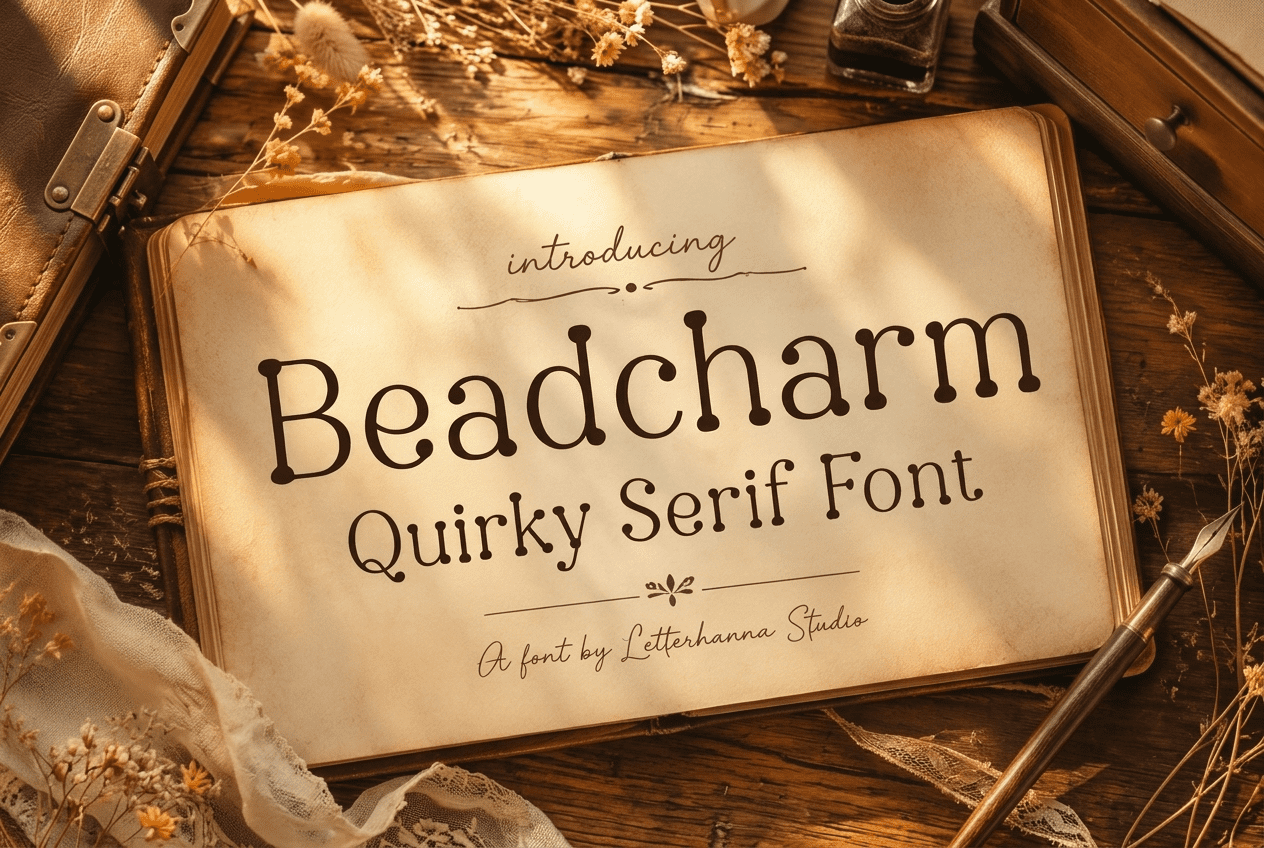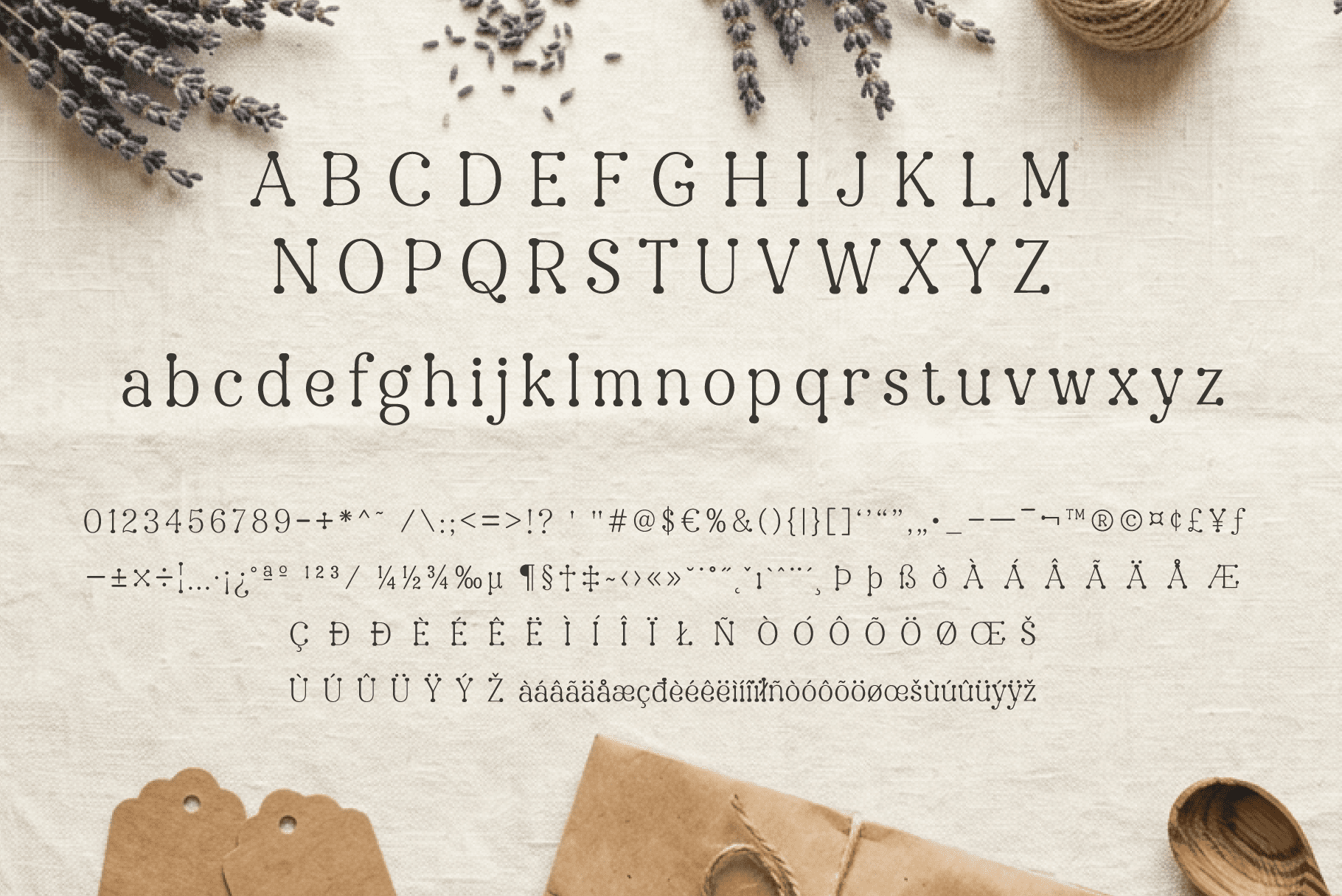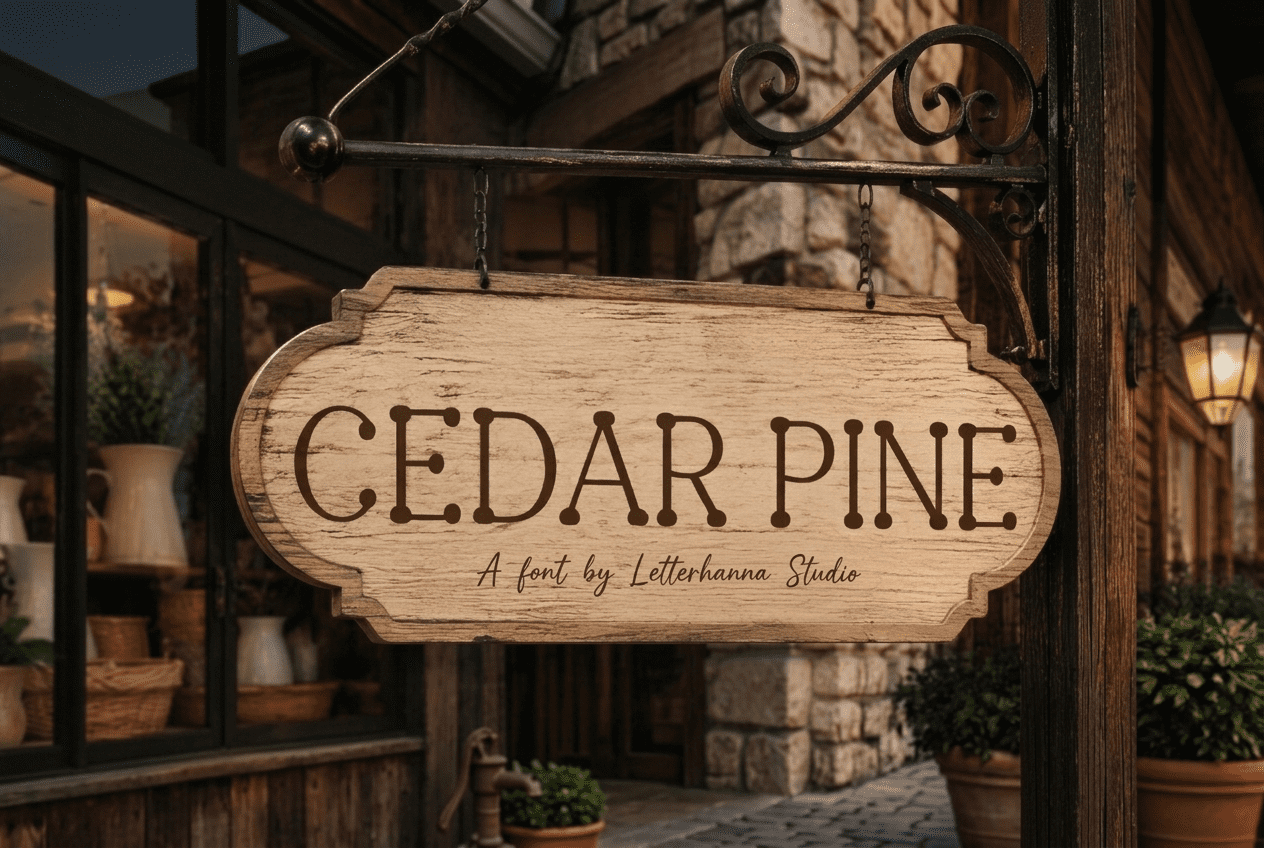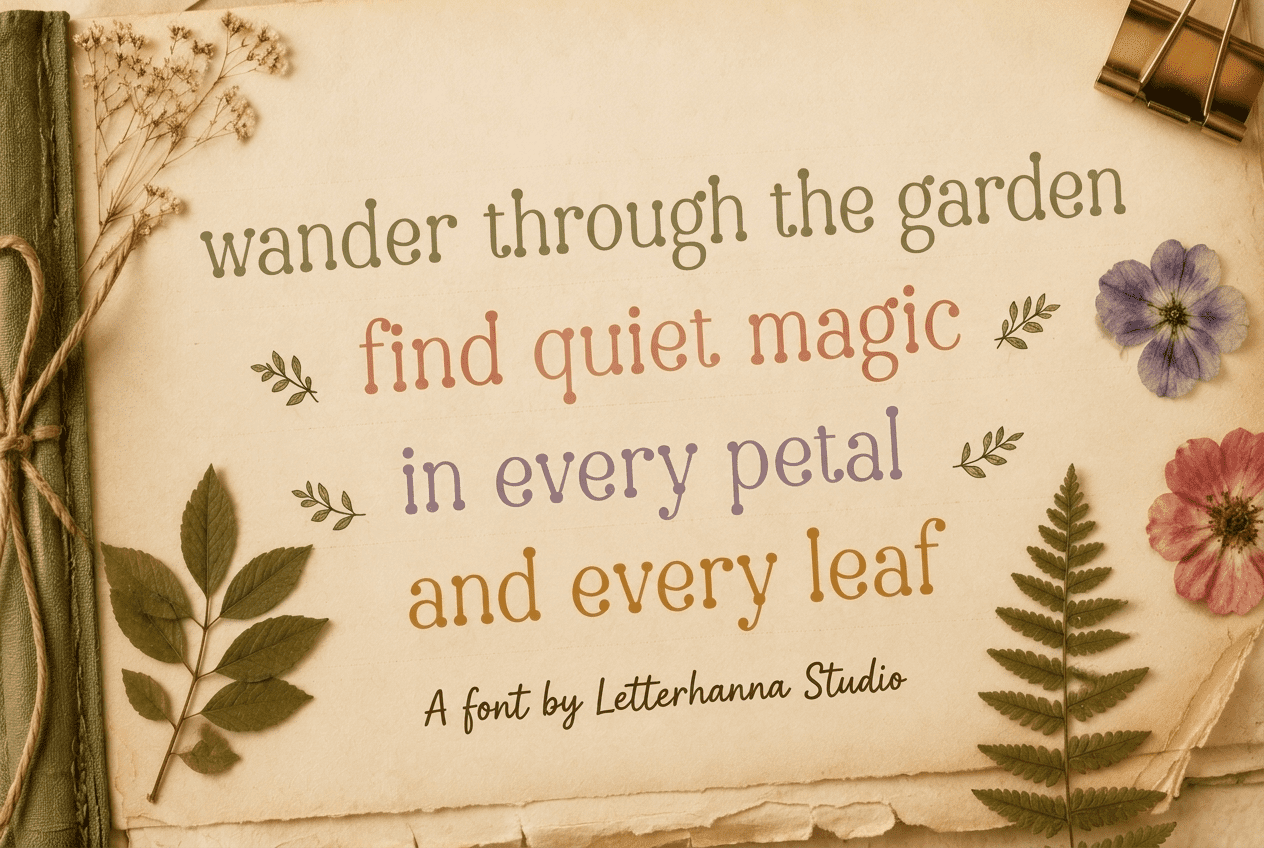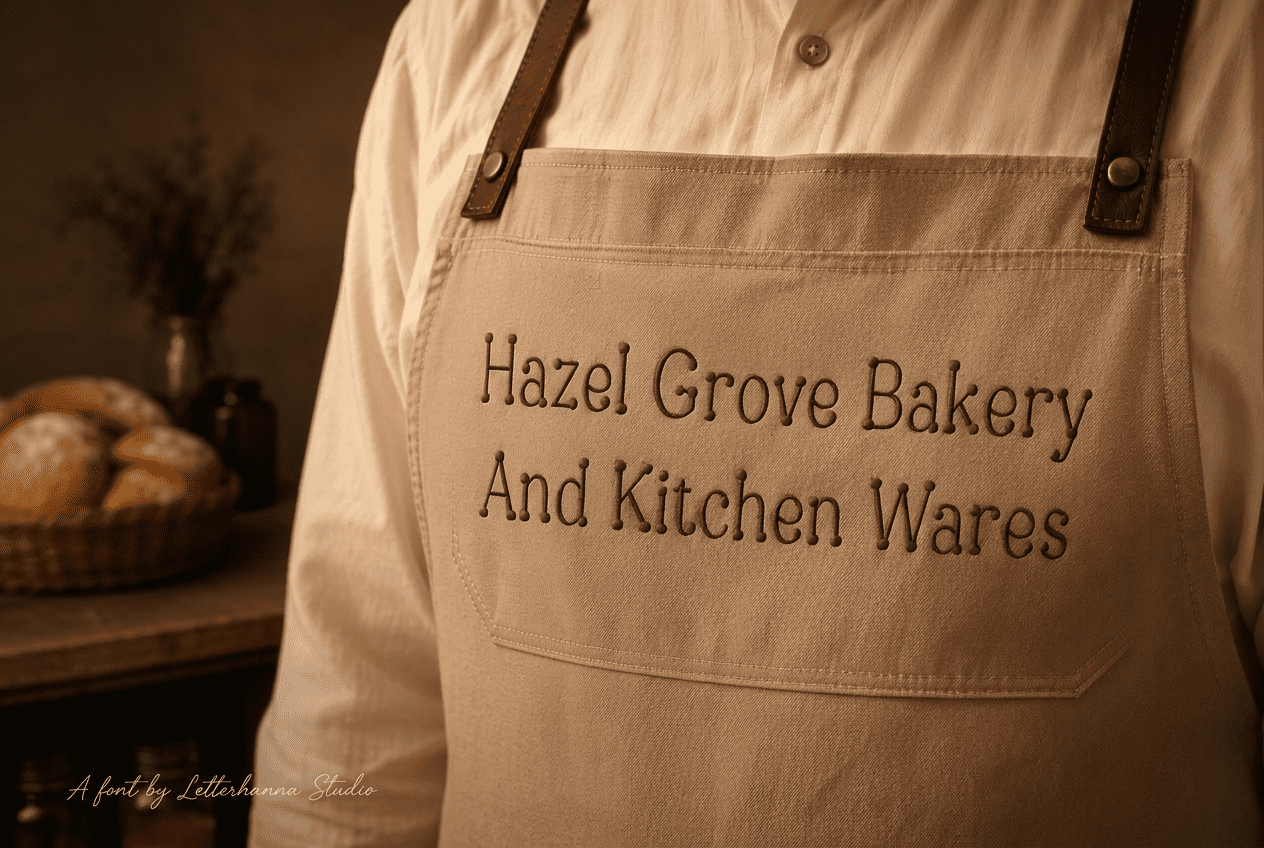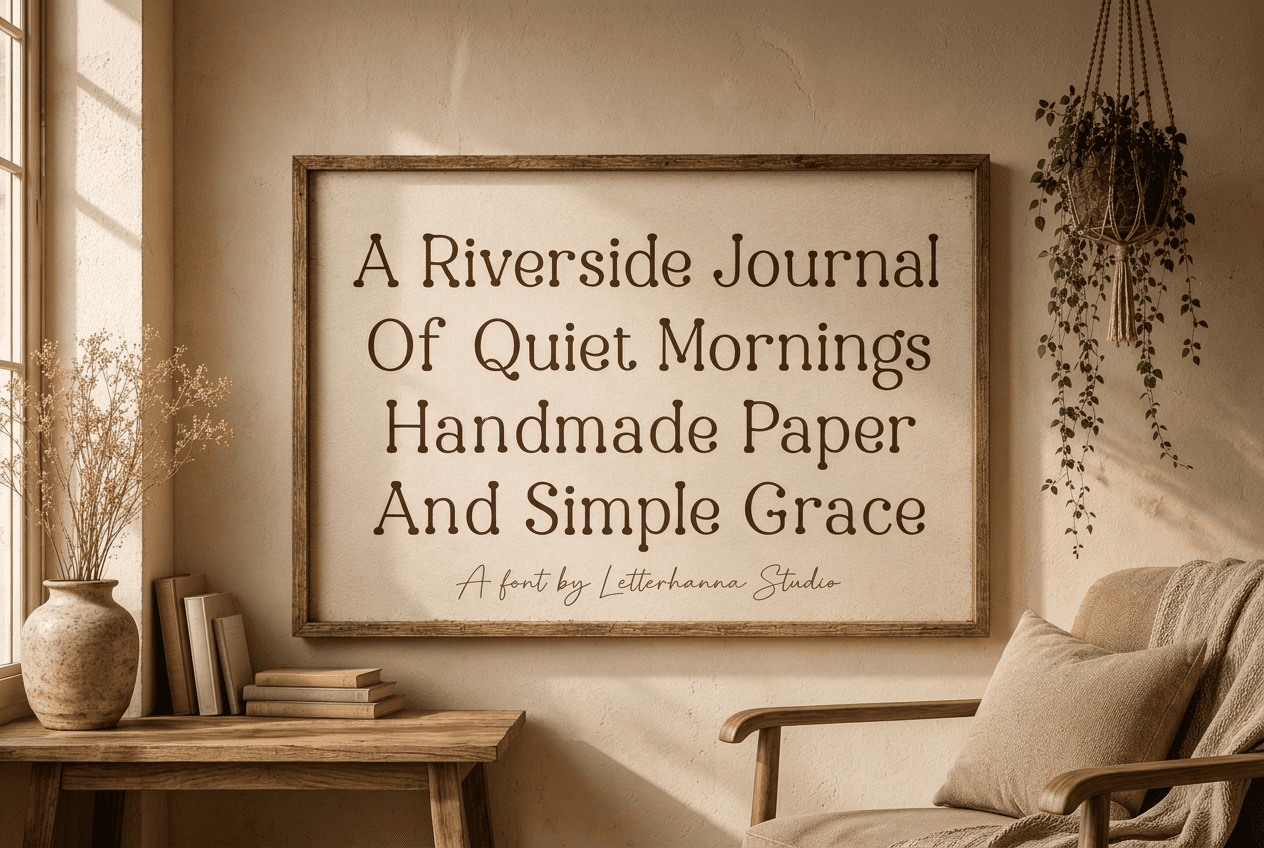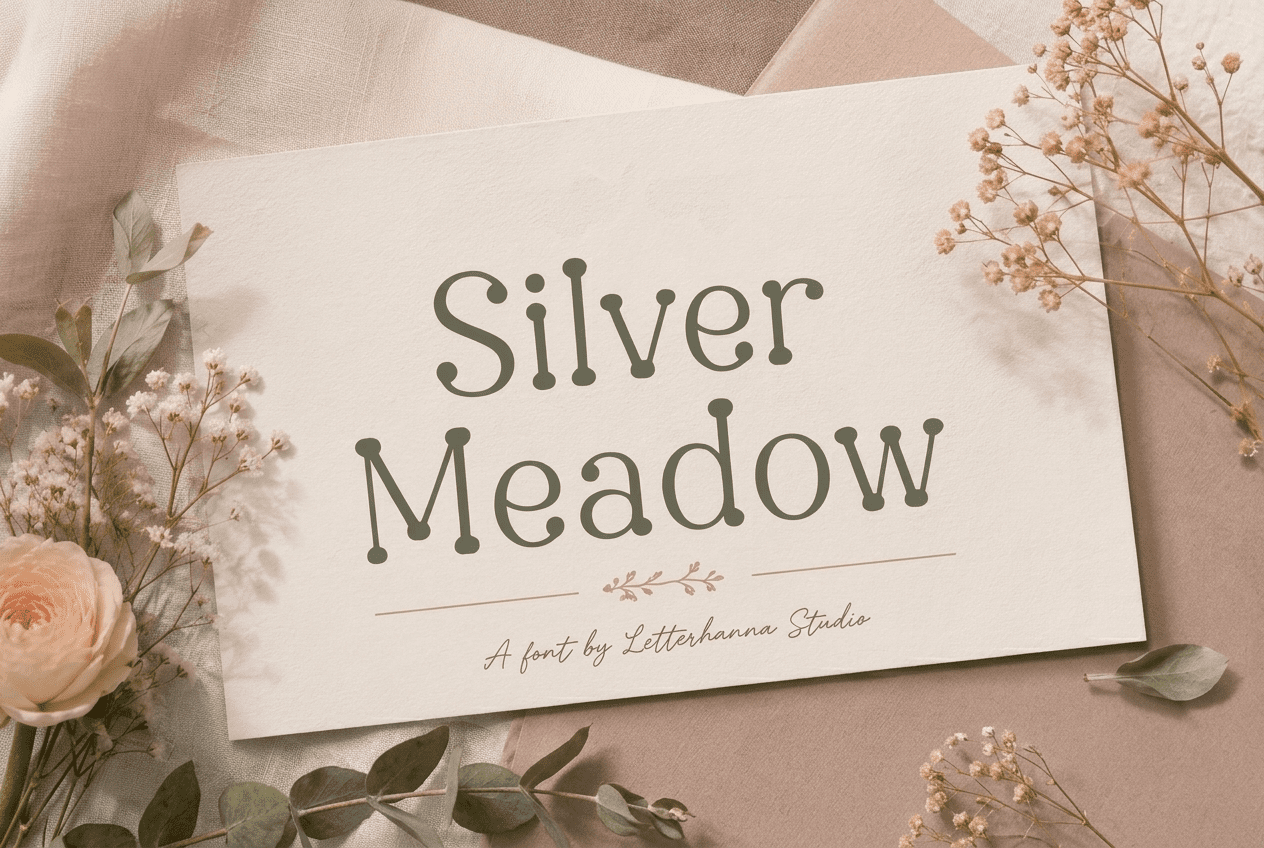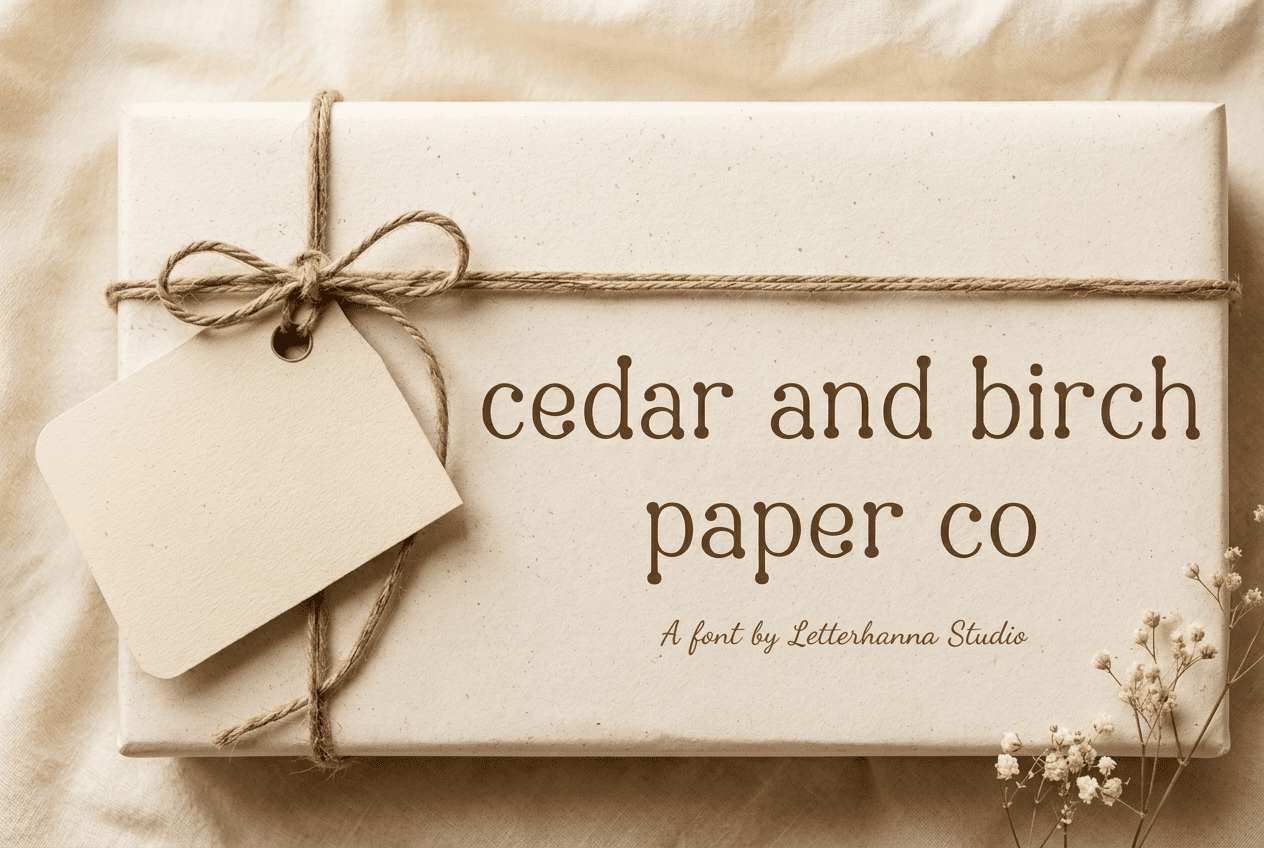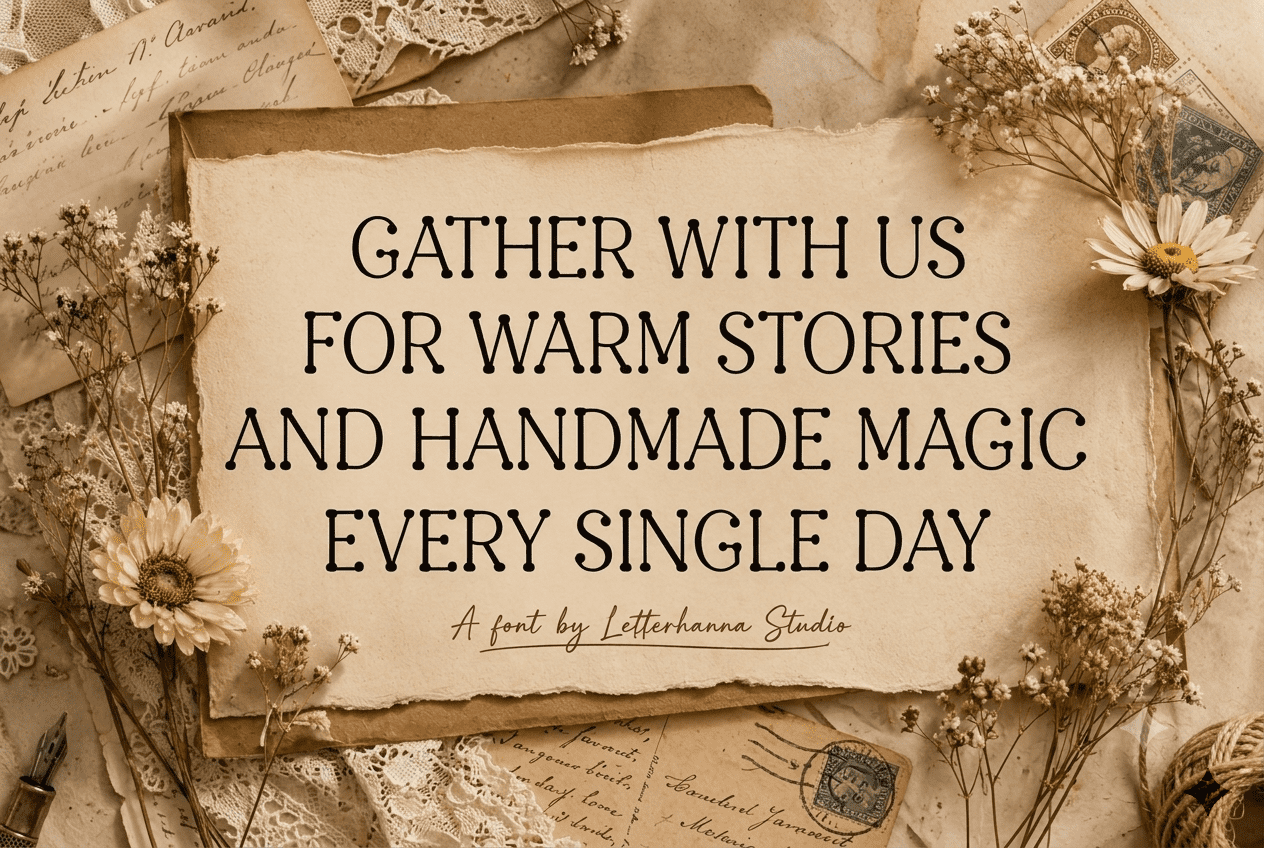
Beadcharm: A Weird and Wonderful Font with Circle Serif Detail You’ll Love
Every once in a while, a typeface comes along that doesn’t just fill space on a page — it tells a story. Beadcharm is one of those fonts. Picture a jewelry maker stringing tiny beads onto delicate thread, one by one, patiently, until a whole necklace takes shape. Now imagine that same patience applied to letterforms, where instead of thread you have strokes, and instead of beads you have small circular terminals sitting at the end of every serif. That’s Beadcharm.
What Makes It a True Circle Serif Font
Most people searching for fonts with circle serif styling are looking for something that breaks away from the standard slab or bracketed serif look. Beadcharm delivers exactly that. Rather than the usual straight-line serif terminal, each stroke ends in a small solid dot, giving the entire alphabet a beaded, almost hand-strung quality. It’s monoline in structure — consistent stroke weight throughout — which keeps it readable even as it flirts with decoration.
Lowercase letters carry a soft, rounded rhythm, while uppercase letters lean formal, almost typewriter-like, creating a nice contrast between playful and classic. It’s this balance that keeps Beadcharm from tipping into novelty territory. It’s decorative, yes, but never illegible.
Not Your Average Typeface
Let’s be honest — most funky font options on the market lean loud: exaggerated swashes, chaotic baseline shifts, oversized flourishes. Beadcharm takes a quieter, more thoughtful approach to standing out. Its personality lives in the details, in those tiny circles that reward a closer look. It’s a quirky font for people who want their design work to feel intentional rather than chaotic — charming rather than gimmicky.
There’s also something undeniably nostalgic about it. The beaded serifs recall vintage stationery, old sewing patterns, and handwritten recipe cards passed down through generations. If you’re building a brand around heritage, craftsmanship, or small-batch production, Beadcharm speaks that language fluently. Some might even call it a weird font, and that’s exactly the point — weird, in this case, means memorable.
Where Beadcharm Belongs
This typeface finds its natural home in projects that value texture and warmth: wedding invitations, boutique packaging, candle and soap labels, farmers market signage, cookbook headers, and small business logos. It’s especially effective in short bursts — a headline, a monogram, a brand name — where each beaded terminal has room to be noticed rather than getting lost in a wall of text.
Pair Beadcharm with warm neutrals, botanical illustrations, or a soft vintage color palette, and the whole composition starts to feel like something found in an antique shop rather than downloaded from a font library. That’s a rare quality, and it’s worth building an entire visual identity around.
The Story Behind the Circles
Every design choice in Beadcharm was made with intention. The circle serif wasn’t added as decoration for decoration’s sake — it was designed to mimic the tactile, imperfect beauty of handmade objects. In a digital world full of flawless, mass-produced typefaces, Beadcharm offers a small act of rebellion: a font that looks like someone actually made it, bead by bead, letter by letter.
That’s the emotional core of this typeface, and it’s why designers keep coming back to it for projects that need warmth, personality, and a touch of the unexpected.